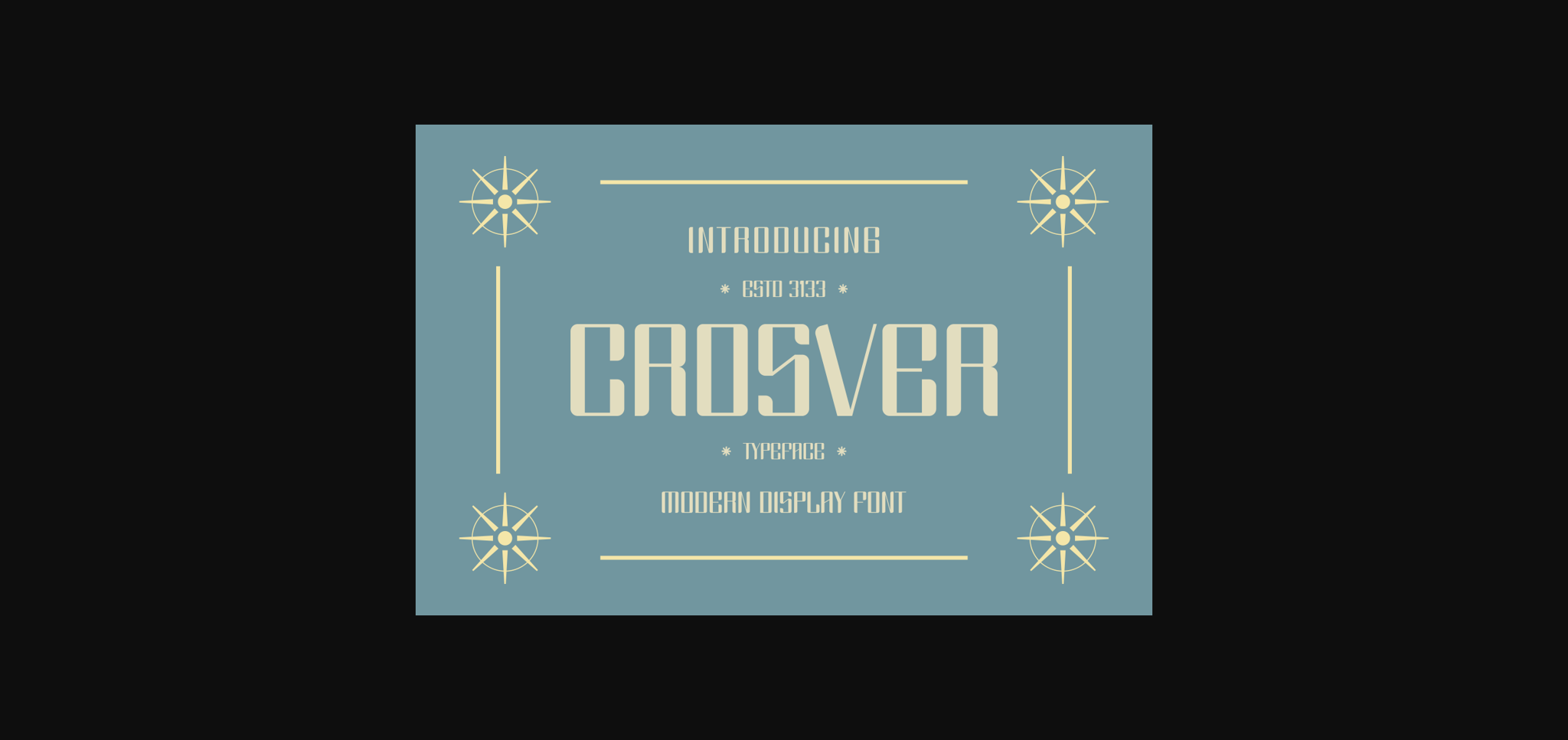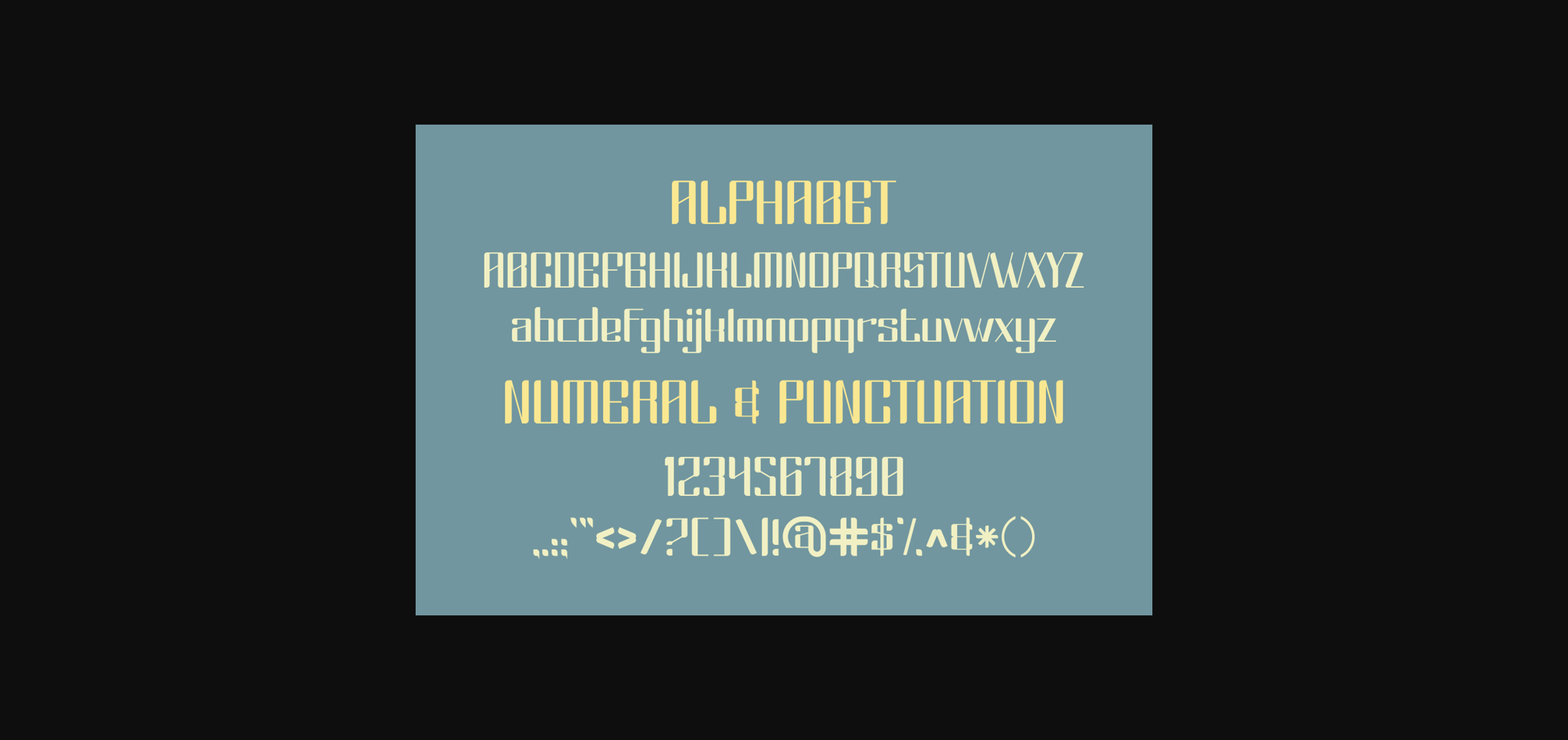
About Crosver Font
Crosver is a bold and authentic sans serif font. The font is suitable for any branding project like logo, t-shirt printing, esports, and many more. It will look outstanding in a wide range of contexts.